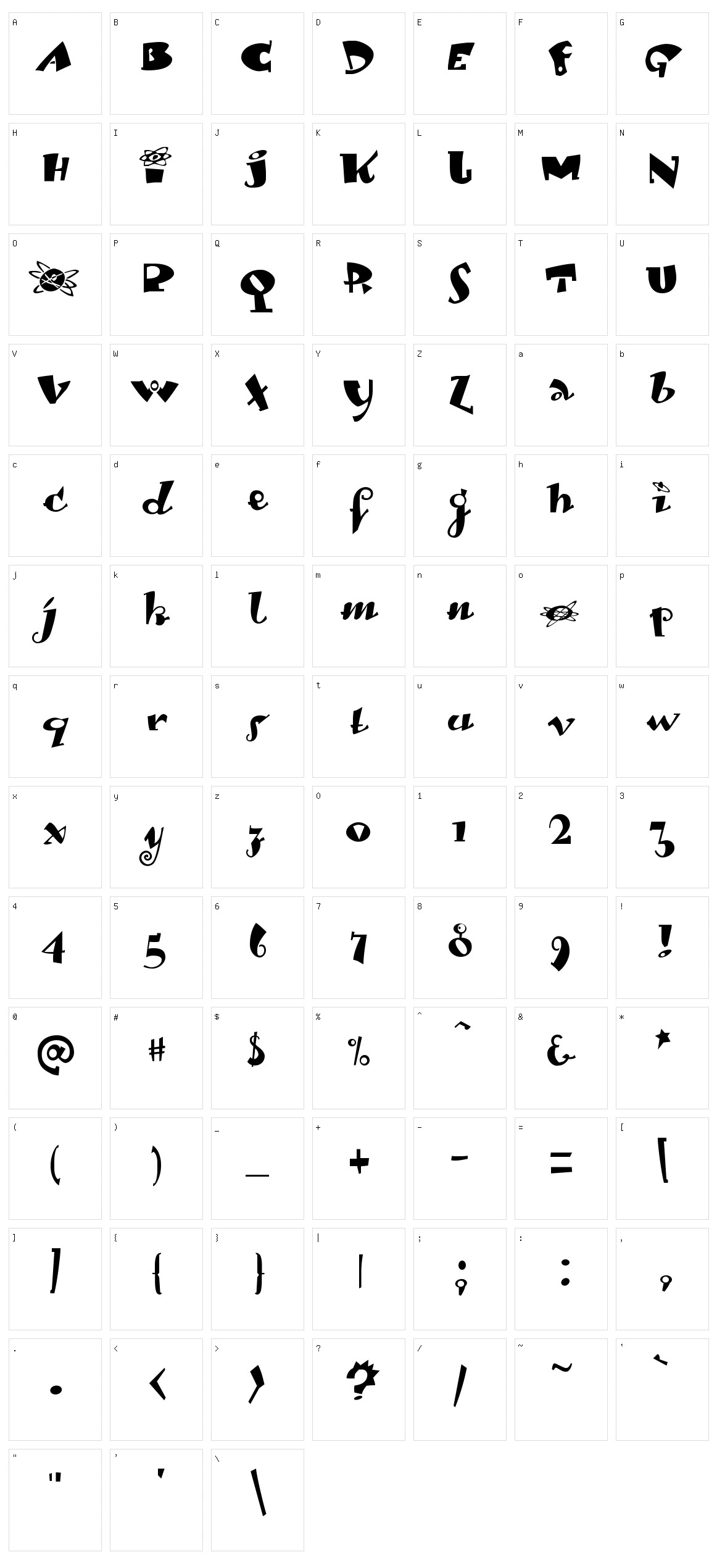
LambadaDexter is the only font I ever get paid to design! So I can claim to be a pro! Gee!
If you find it cartoony, no wonder, it was for a french cartoon network.